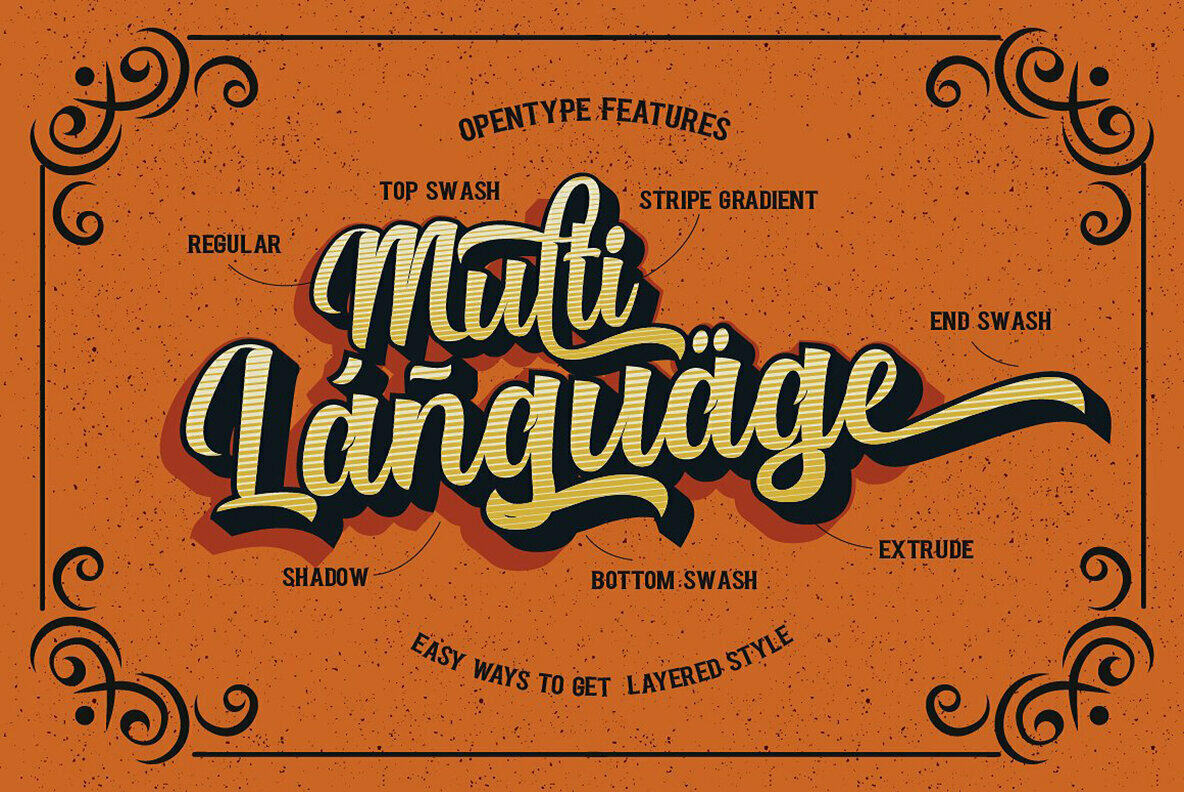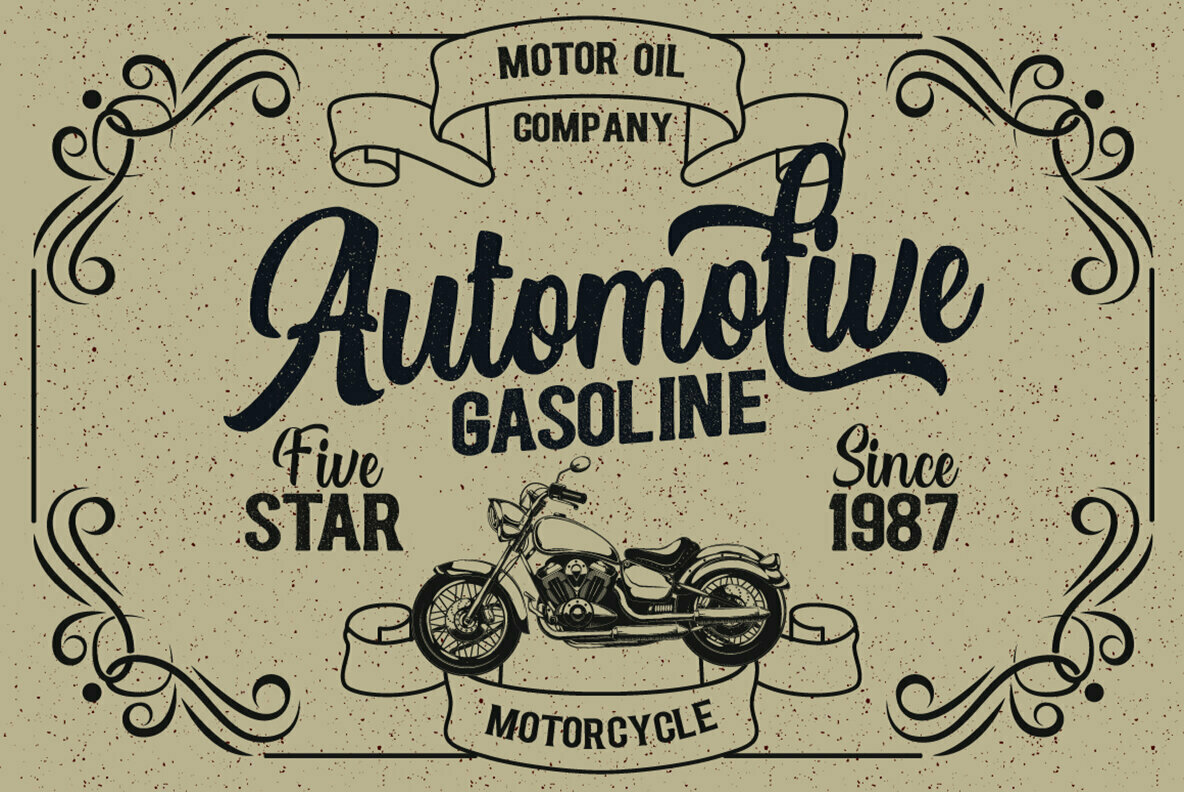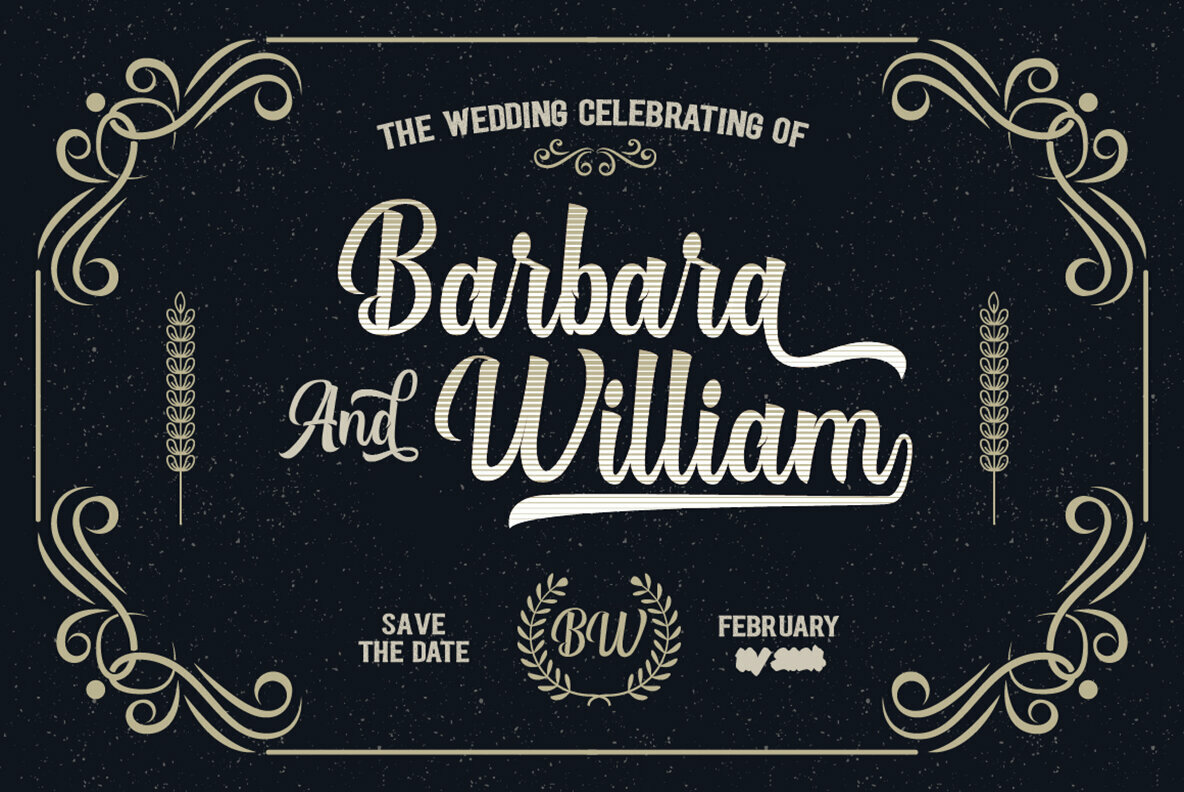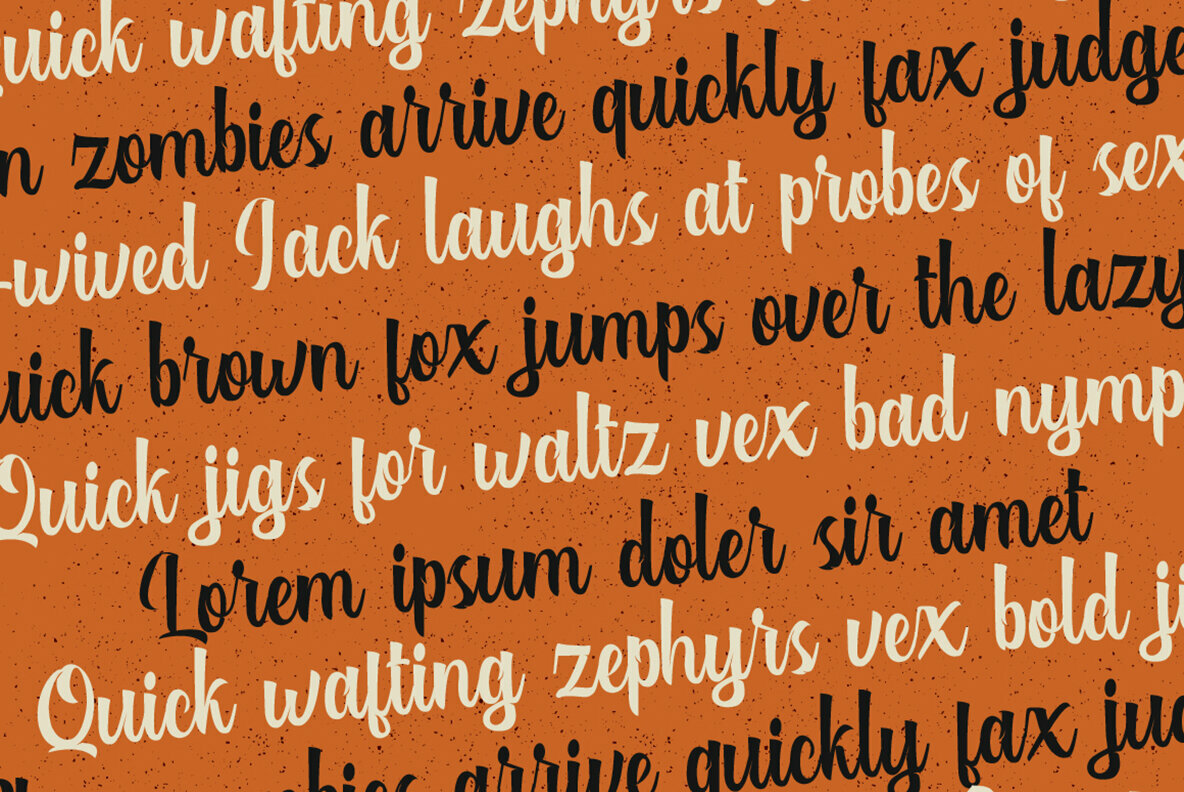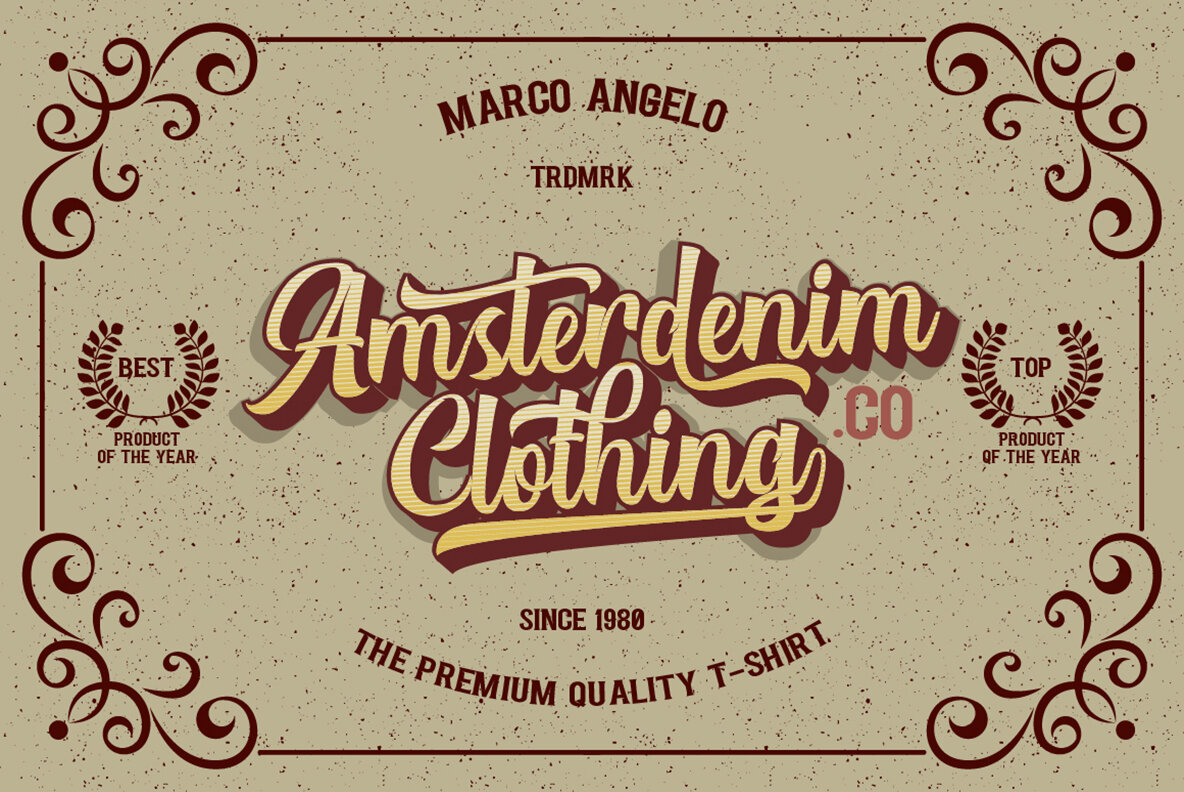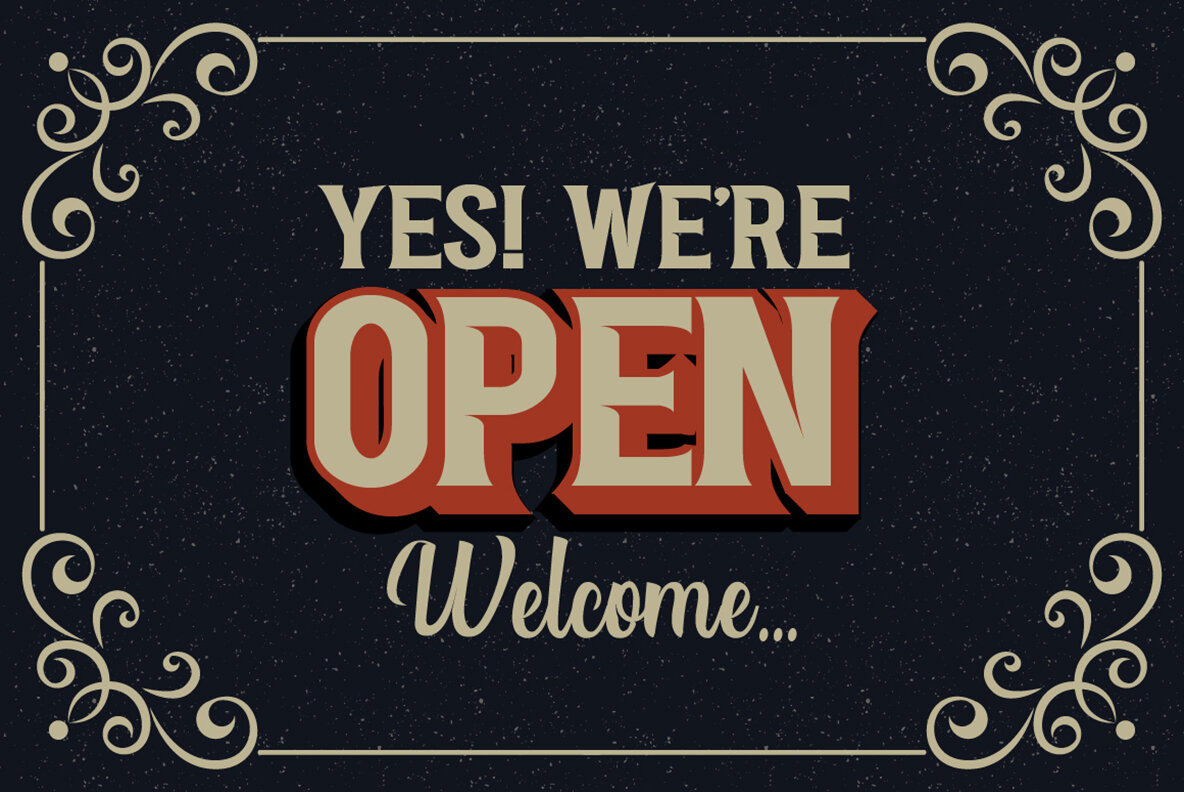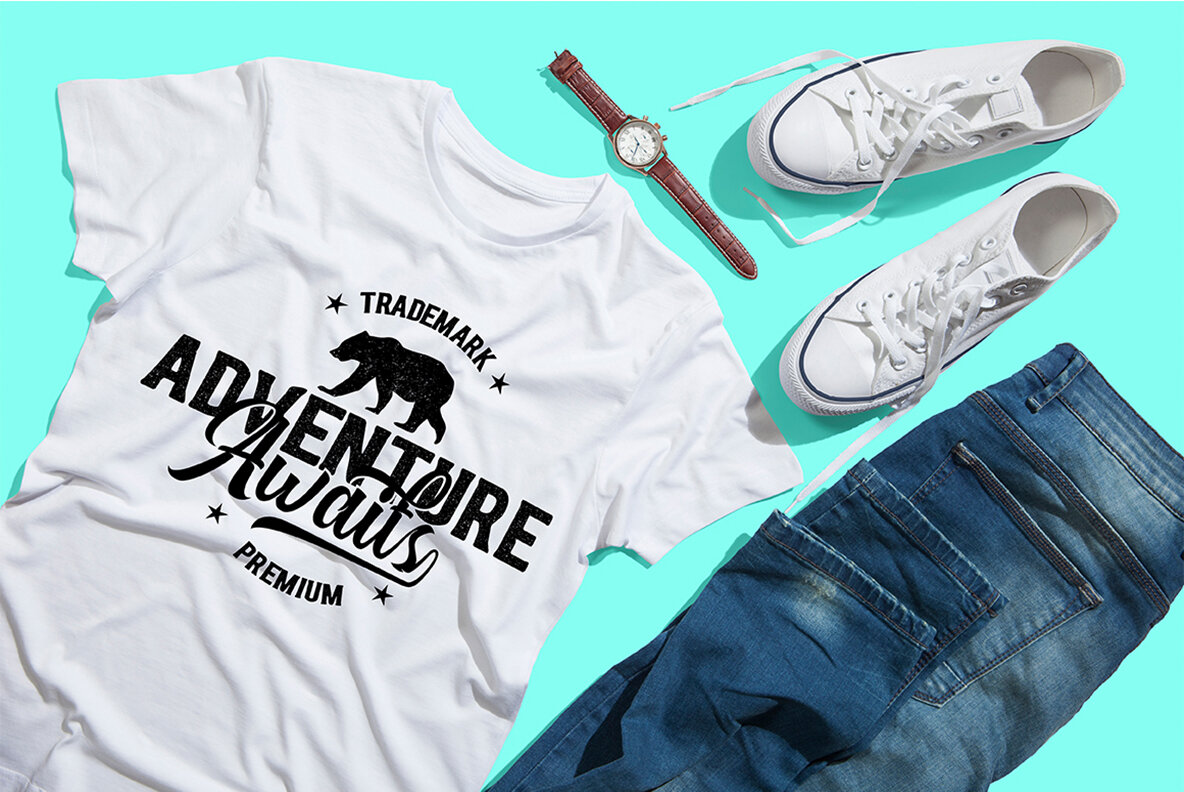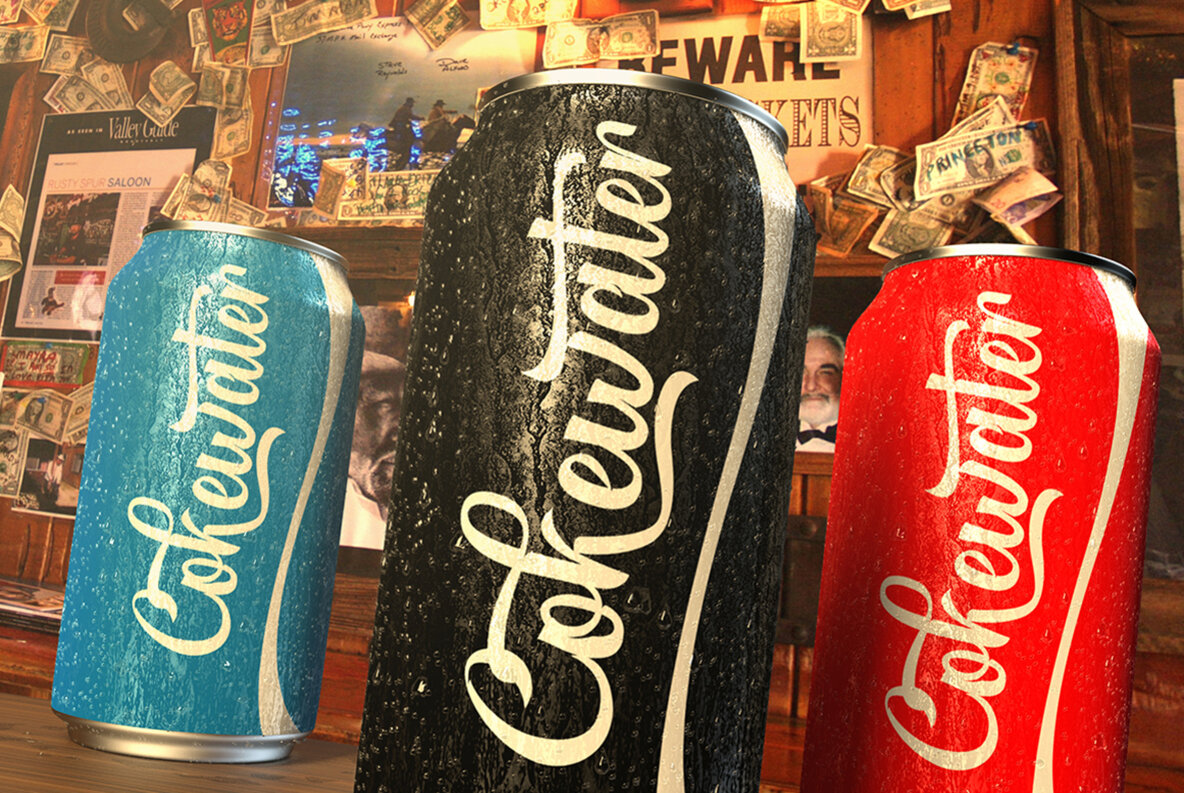
Authentic Layered Font
The Authentic Layered Font by Debut Studio offers a diverse typography experience through its dual categories: script and serif. Each style includes four layered types, complemented by a rough variant. This assortment enables compelling textual effects without the need for extensive editing. It's an ideal choice for vibrant and dynamic designs such as logos, t-shirts, branding, and various creative projects. Software Compatibility: This font collection is designed to work seamlessly with programs supporting OpenType features. Suitable applications include Adobe Illustrator, Adobe InDesign, CorelDraw, and Microsoft Word 2010 or newer versions. For accessing alternate characters, utilize tools like Windows Character Map, Nexus Font, Font Book, or PopChar.Authentic Layered Font: A Versatile Typeface Collection